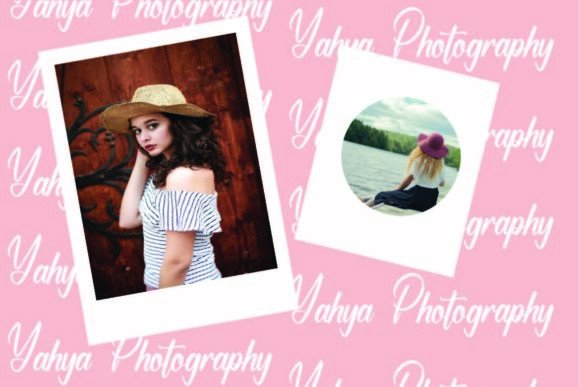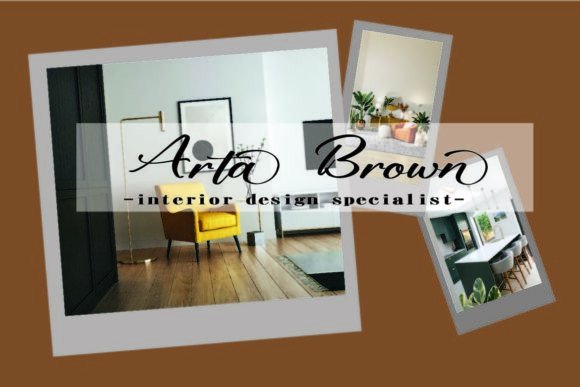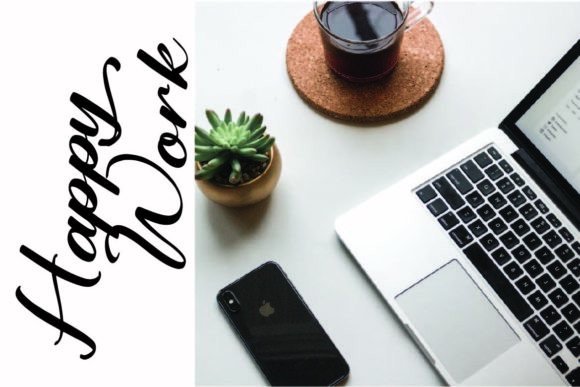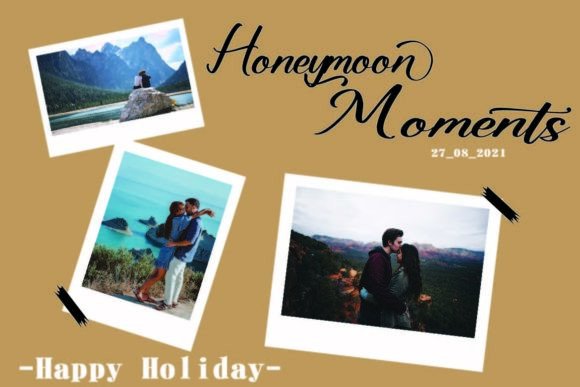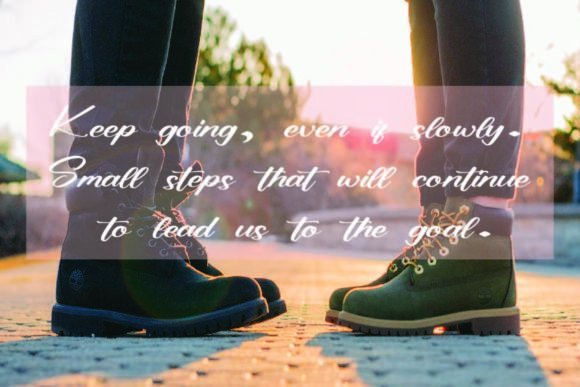
Introduction to Pamedarsih Font
As a designer, there’s nothing quite like the thrill of staring at a blank canvas, waiting for inspiration to strike. The blank page stares back at you, taunting you to bring your creative vision to life. It’s in these moments that the right design resource can make all the difference. Enter the Pamedarsih Font – a beautiful, handwritten script font that’s sure to capture the essence of your next creative project.
With its unique aesthetic touch, Pamedarsih Font is the perfect addition to any design arsenal. Whether you’re working on a high-quality print project or a quick social media graphic, this versatile font is sure to bring your ideas to life. And the best part? It’s available for free download, making it an accessible design resource for designers of all levels.
So why is Pamedarsih Font so valuable for designers? For starters, its transparent background makes it easy to layer and combine with other design elements, giving you endless creative possibilities. Plus, its high-quality design ensures that your final project looks polished and professional – every time.
Key Features of Pamedarsih Font
- High-quality design resource suitable for creative projects, offering a unique and elegant aesthetic.
- Designed with a high level of detail, featuring intricate textures and patterns that add depth and visual interest to designs.
Honest Review: Pamedarsih Font
I recently stumbled upon the Pamedarsih Font, and I must say it’s a gem in the world of design resources. The moment I laid my eyes on it, I knew it had potential to elevate my creative project to the next level.
What works well: ✨ The Pamedarsih Font boasts a unique, elegant design that makes it perfect for various design projects. Its compatibility with high-quality images and its ability to work seamlessly with transparent backgrounds make it a valuable addition to any designer’s toolkit. The font is also available for free download, which is a huge plus for those on a budget.
What could be improved: ⚠️ While the Pamedarsih Font is an excellent choice for many projects, it may not be suitable for all. The font’s script style may not be ideal for projects that require a more modern or bold aesthetic. Additionally, some users may find the font’s compatibility with certain software limited.
Overall, I’m impressed with the Pamedarsih Font. Its unique design, high quality, and free download option make it a valuable resource for designers. However, its limitations should be taken into consideration when choosing a font for your creative project.
- Unique, elegant design
- Perfect for various design projects
- Compatible with high-quality images and transparent backgrounds
- May not be suitable for modern or bold designs
- Compatibility with certain software may be limited
Tips for Getting the Most Out of Pamedarsih Font
To get the most out of the Pamedarsih Font, try using it with a transparent background to create a unique and eye-catching design. You can also experiment with different font sizes and styles to add depth and visual interest to your project.
The Pamedarsih Font is particularly useful for creating high-quality designs for logos, branding, and marketing materials. Its unique and creative style makes it an ideal choice for designers looking to add a touch of elegance and sophistication to their projects.